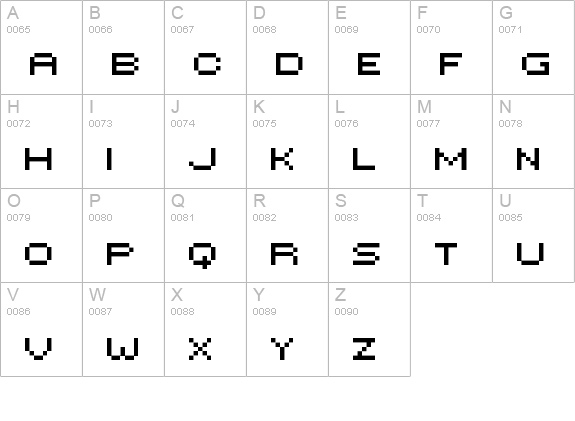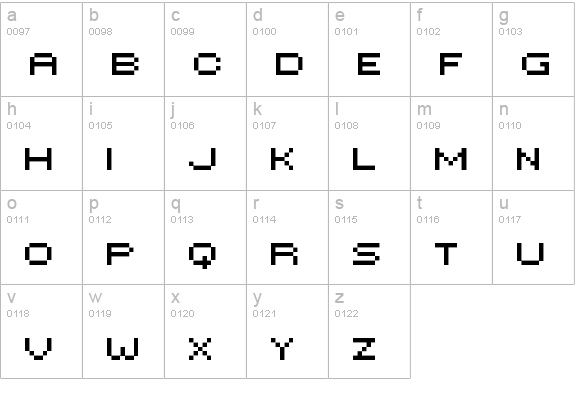
HILOGINREG Font Details
HILOGINREG font is a modern and sleek typeface perfect for a variety of design projects. With its clean lines and contemporary style, this font exudes professionalism and sophistication. The HILOGINREG font is versatile and can be used for both headings and body text, making it a great choice for branding, advertising, and editorial design. Best of all, HILOGINREG font is available for free download at FontsMarket.com. This means you can easily access this high-quality font without any cost, making it a valuable addition to your font collection. Don't miss out on the opportunity to enhance your designs with the stylish and elegant HILOGINREG font today!